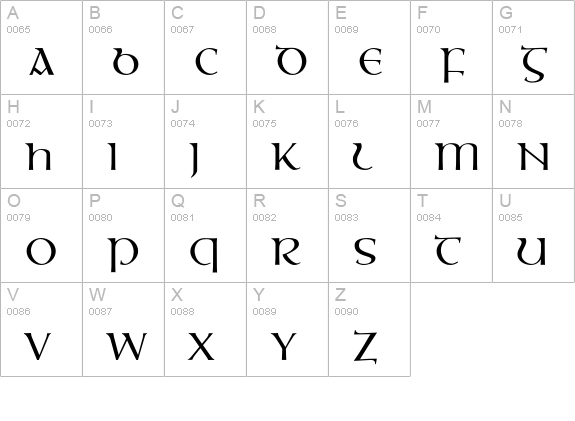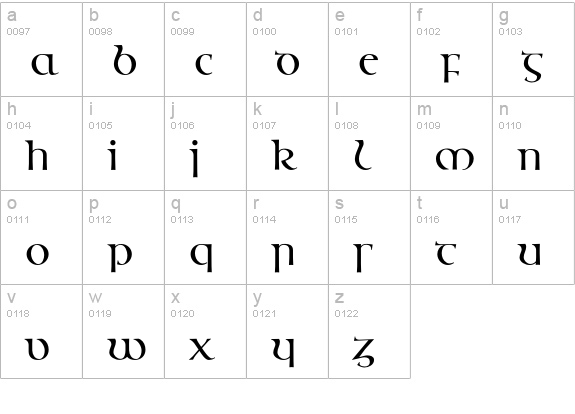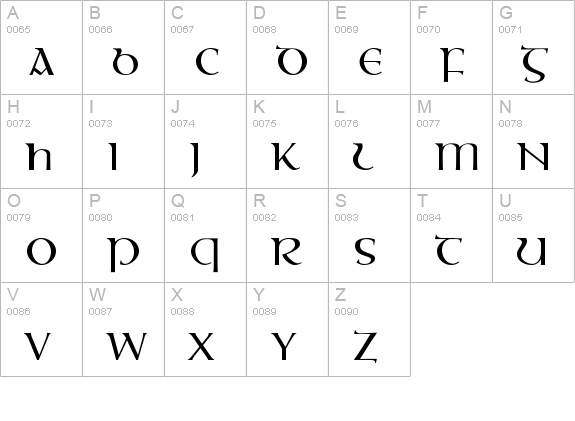
OssianEF-RegularAlternate Font Details
OssianEF-RegularAlternate font is a versatile and elegant typeface that offers a unique twist on traditional letterforms. With its distinctive alternate characters, this font exudes a sense of creativity and sophistication. The smooth curves and sharp angles of OssianEF-RegularAlternate create a harmonious balance that is perfect for a wide range of design projects. Not only does OssianEF-RegularAlternate stand out for its aesthetic appeal, but it also delivers excellent readability and legibility across various platforms. Whether used for branding, editorial design, or web projects, this font will make your text pop and leave a lasting impression on your audience. Best of all, OssianEF-RegularAlternate is available for free download at FontsMarket.com. This means you can easily access and incorporate this stunning font into your projects without any cost. Don't miss out on the opportunity to enhance your designs with the beauty and versatility of OssianEF-RegularAlternate font. Download it today and let your creativity shine!